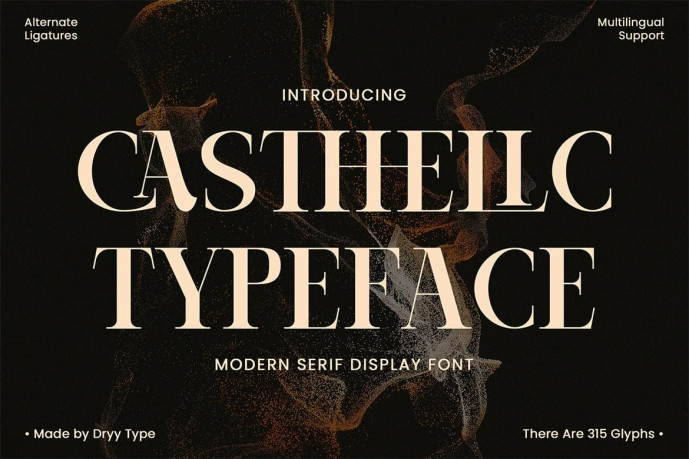
Casthelic – Elegant Serif Typeface
Designer: Dryytype
Casthelic – Elegant Serif Typeface, An aesthetic font that has a unique and elegant character to use. Casthelic is a beautiful and elegant serif Font. This font I created is meaningful & very versatile, it goes well with a variety of designs, elevating them to the highest level. Add this font to your favorite creative ideas and watch how it becomes real!
• Features : Uppercase, Lowercase, Numerical, Alternates, Ligatures & Multilingual Support